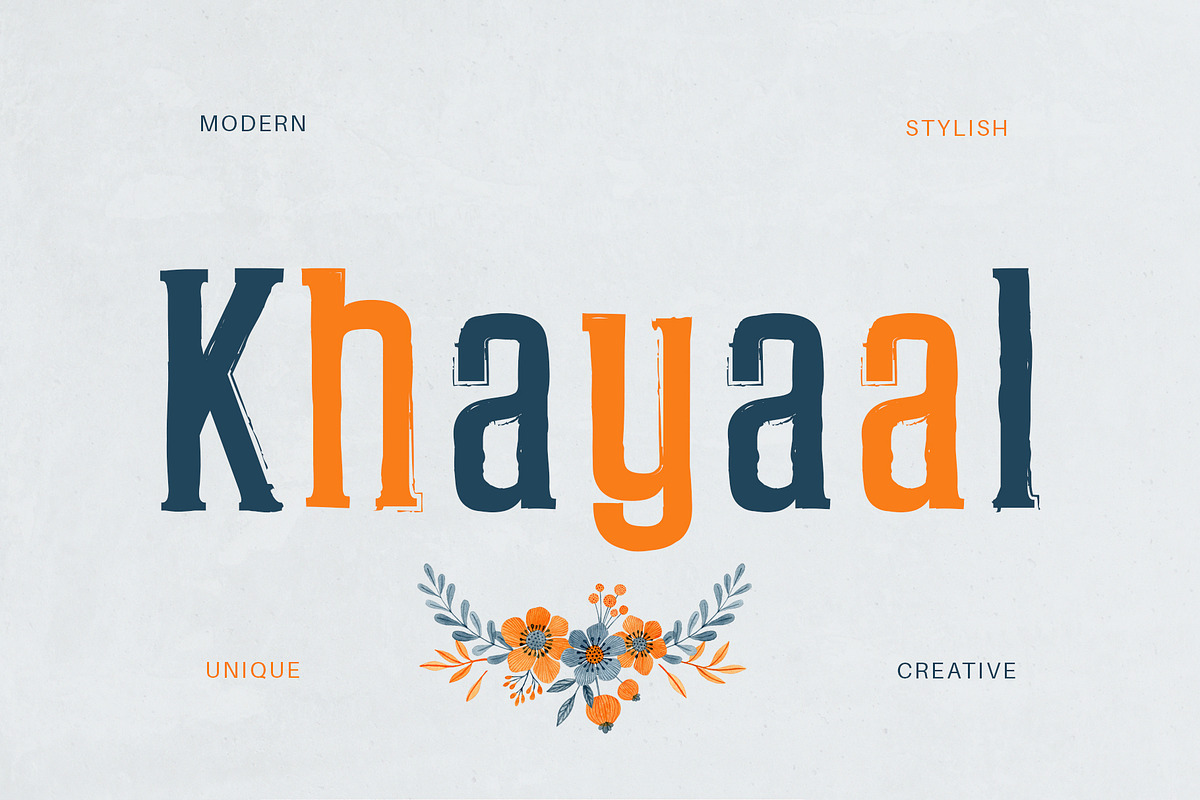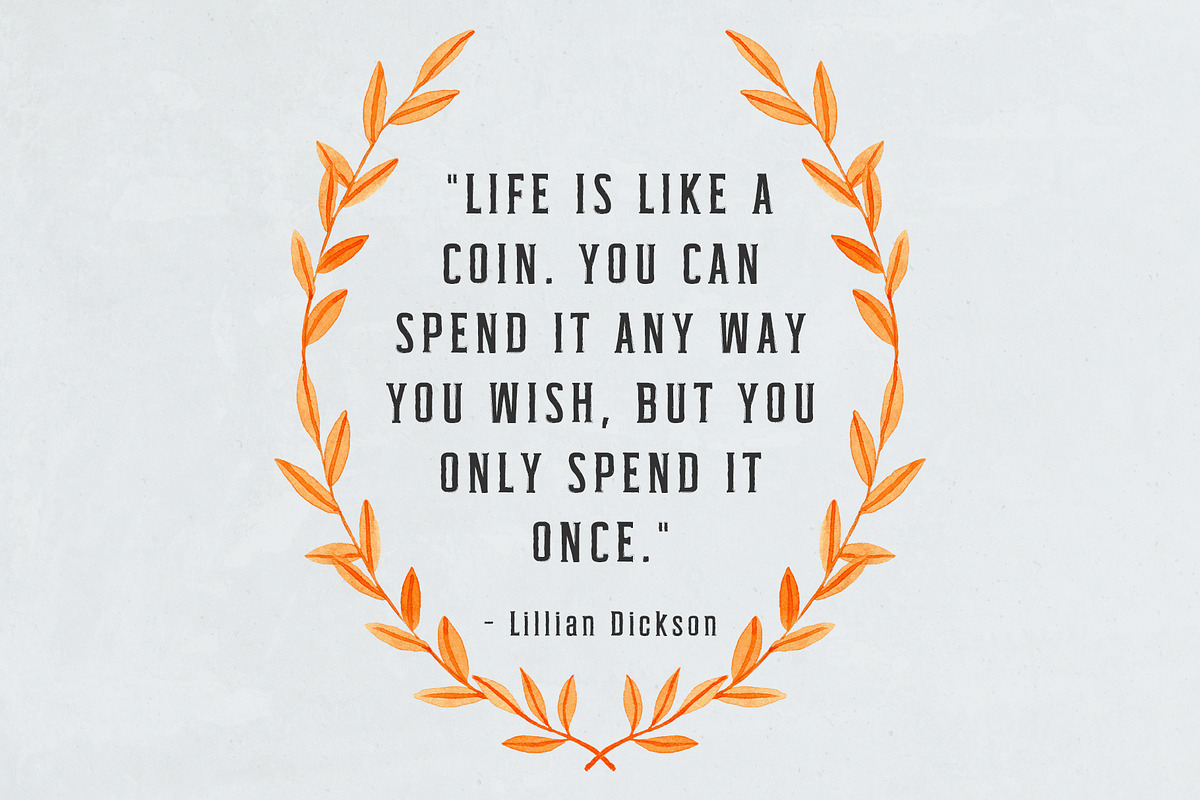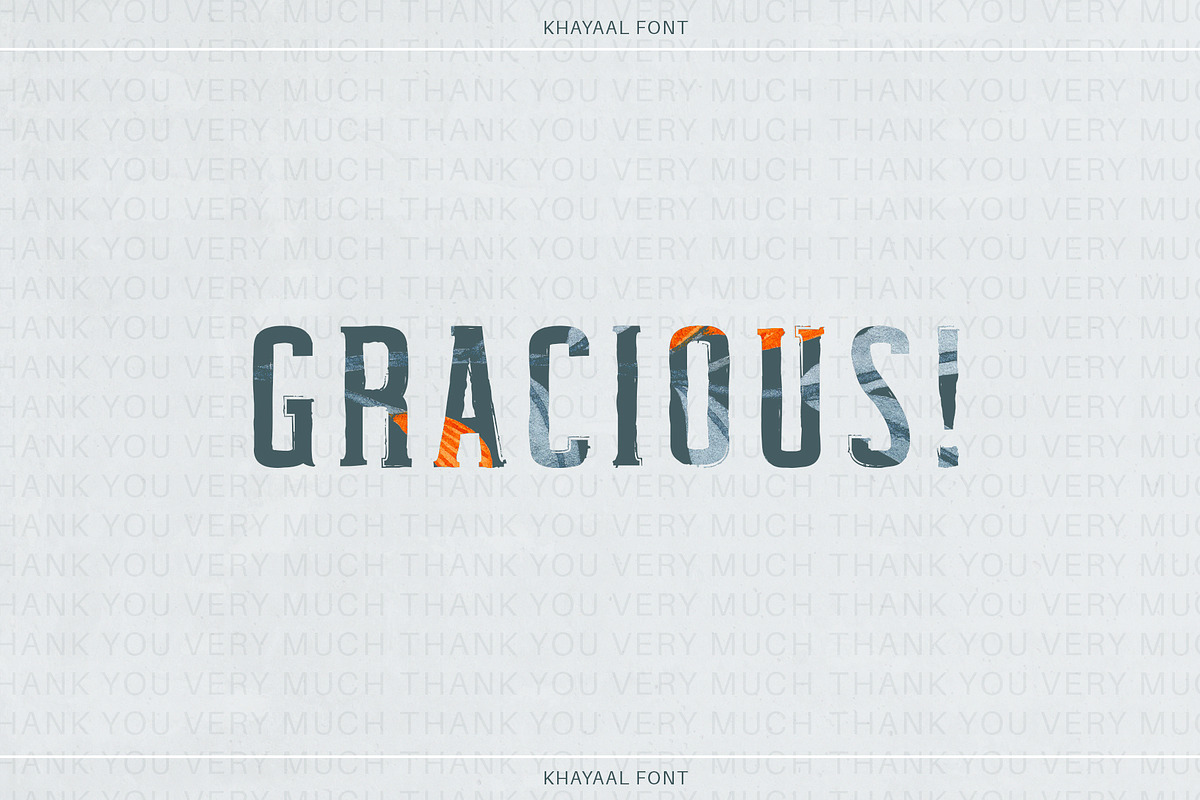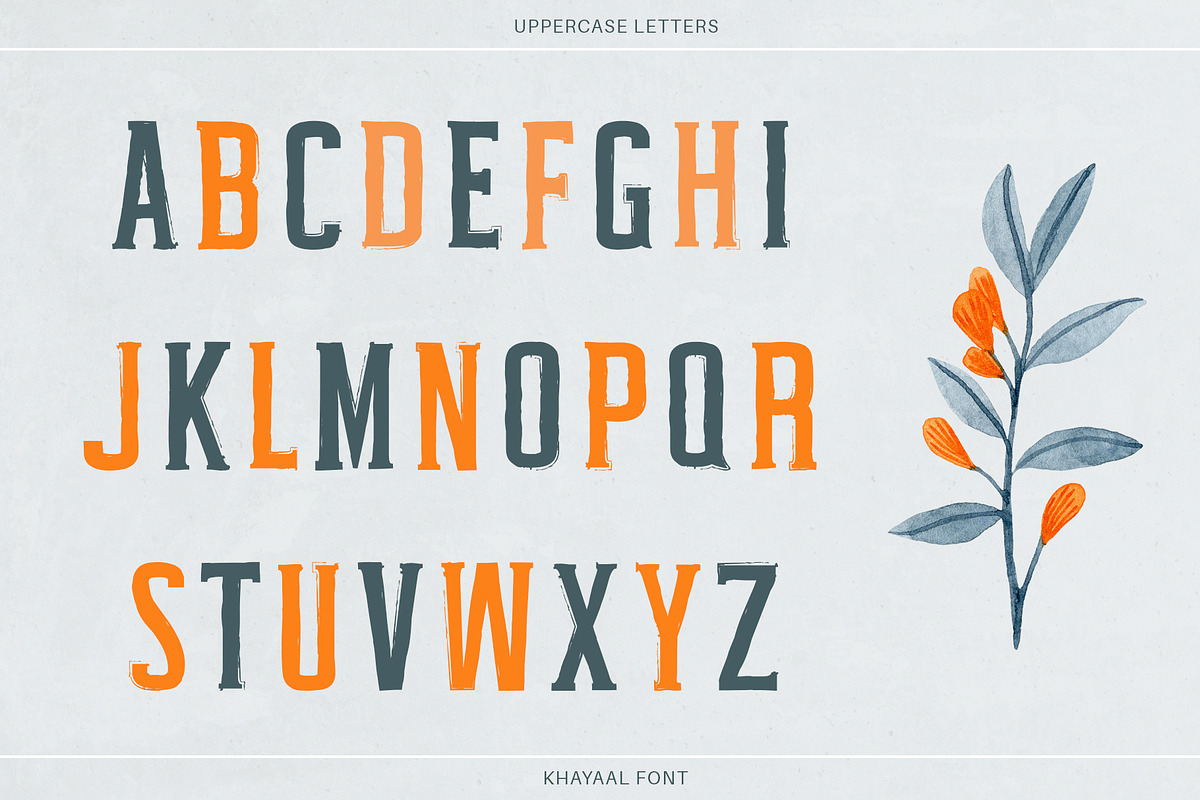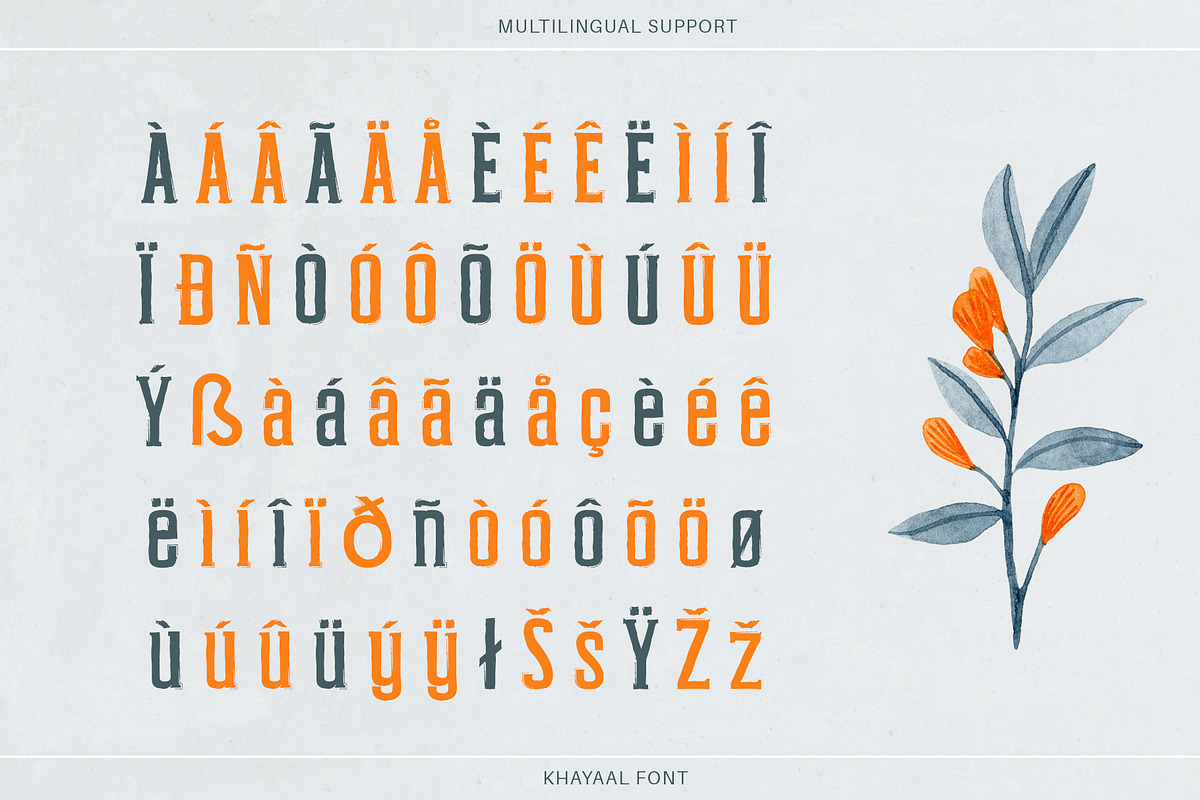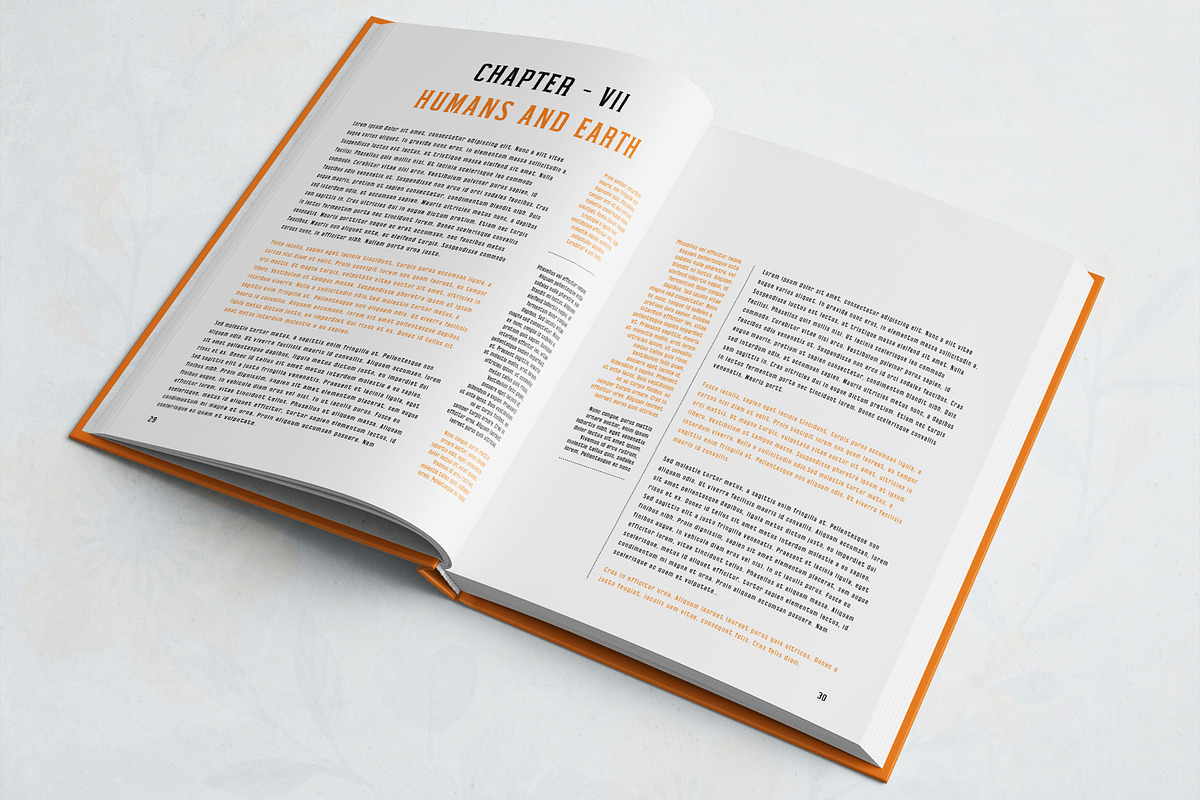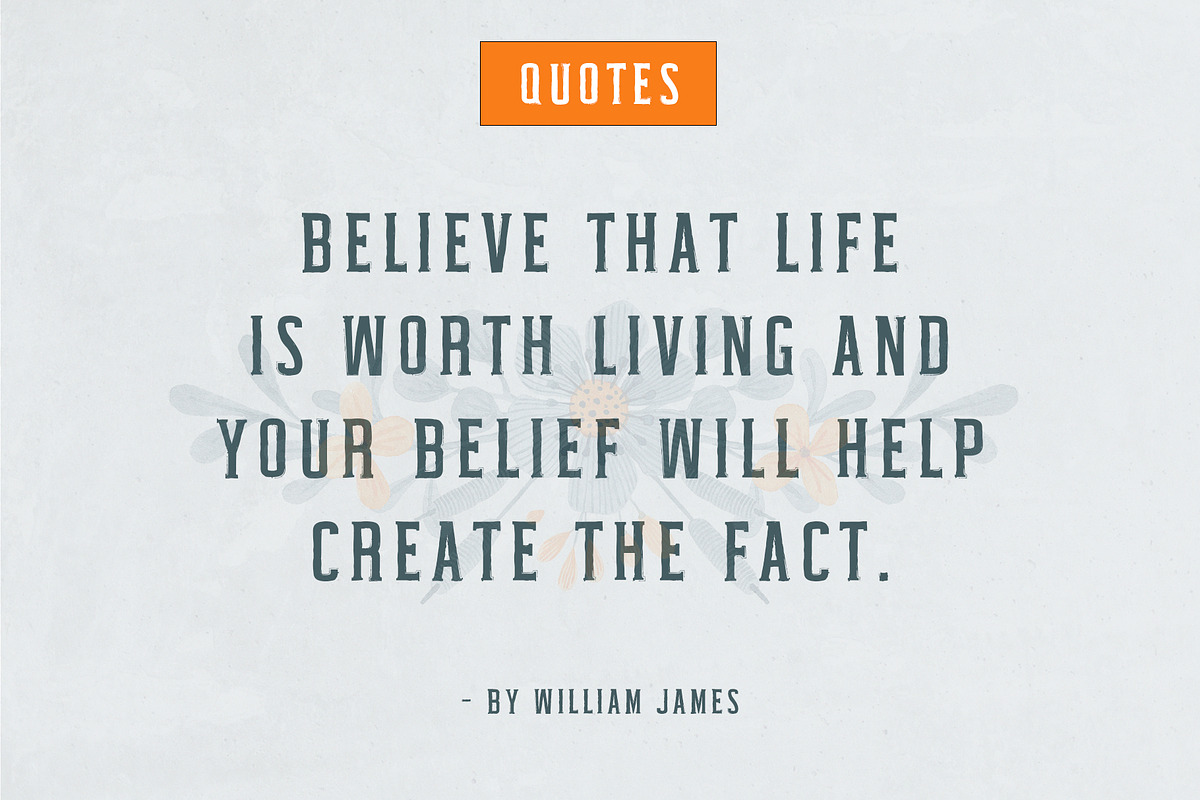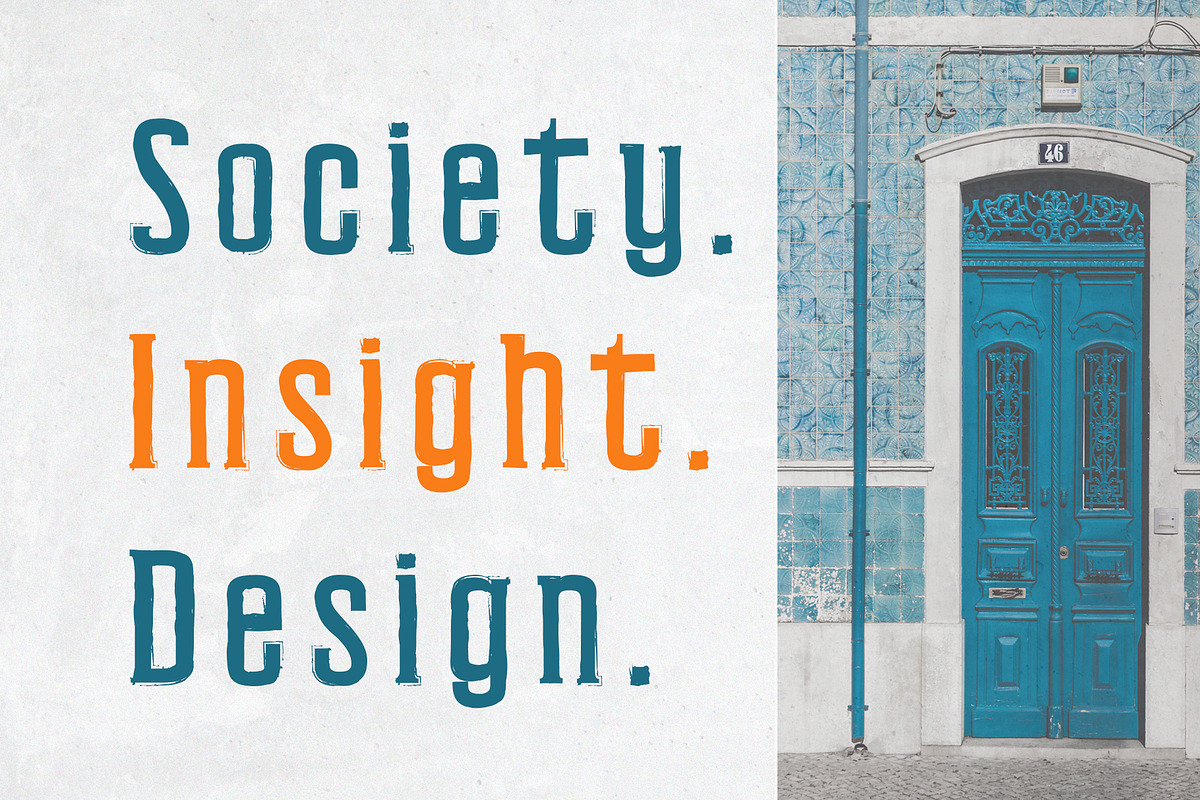
Khayaal Display Font
Say hello to our Khayaal Display Font! It's a fun, eye-popping hand-drawn font that brings a modern and playful vibe to your future projects. It features all you need - uppercase, lowercase, numbers, punctuation, and symbols, and even supports multiple languages.
Khayaal is your go-to font for just about anything! Use it for packaging, slideshows, logos, headlines, lettering, posters, branding, inspirational quotes, titles, magazine layouts, website designs, ads, invites, packaging design, book covers, and any other creative endeavour you can think of.
The Khayaal Font comes packed with:
- Big Letters (Uppercase)
- Small Letters (Lowercase)
- Numbers & Symbols
Here's a sneak peek at the characters supported:
- All the letters from A-Z (uppercase and lowercase)
- All the numbers from 0-9
- All these special characters - !"#$%&'()*+,-./:;=?@[]^_`{|}~¥
And a range of international characters like ÀÁÂÃÄÅÈÉÊËÌÍÎÏÑÒÓÔÕÖÙÚÛÜÝàáâãäåèéêëìíîïñòóôõöùúûüýÿỲ